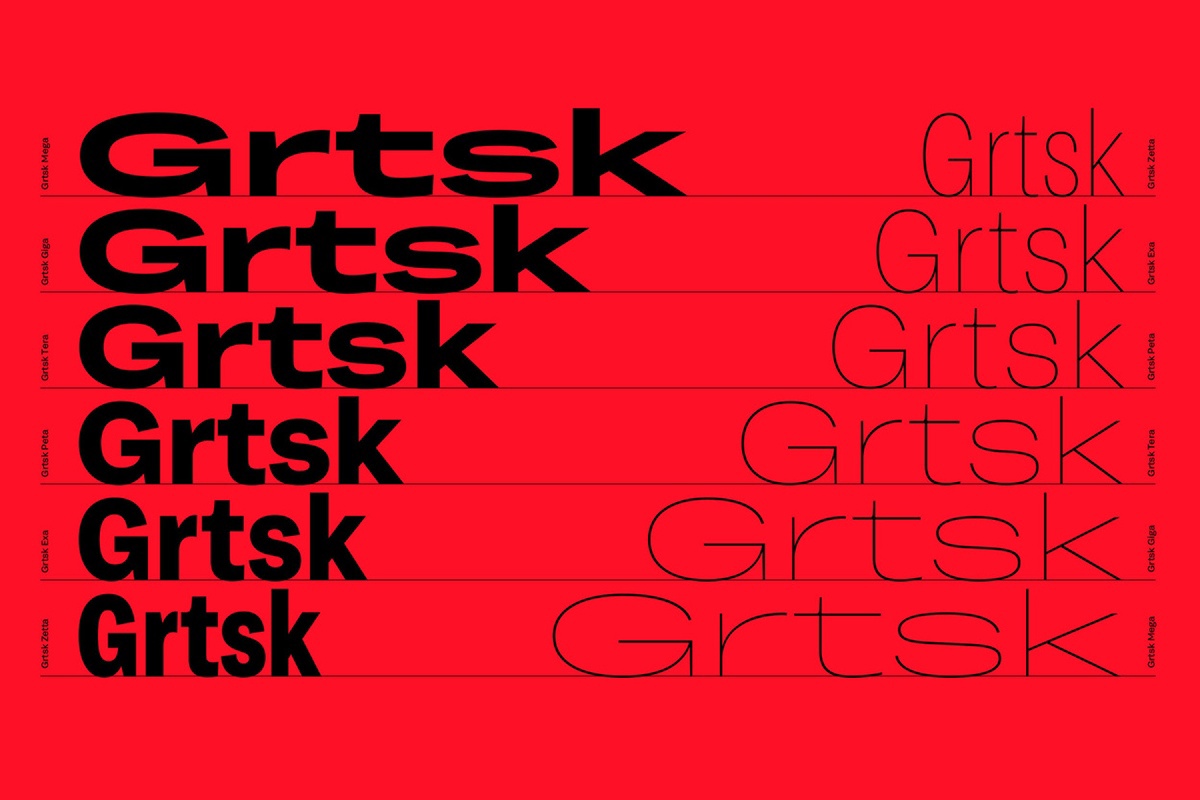
Grtsk Font
Grtsk Font is perfect for minimalist brand identities, modern tech interfaces, contemporary corporate communications, clean architectural signage, streamlined product packaging, professional web typography, efficient document layouts, systematic design applications, straightforward marketing materials, and functional digital platforms.
What makes Grtsk Font so exciting is its exceptional ability to deliver pure functionality and uncompromising clarity through letterforms that seem stripped of all unnecessary elements while maintaining perfect readability and professional appeal. This essential typeface embodies the principles of functional design and systematic communication with characters that prioritize information delivery over decorative flourish. The font's systematic design elements perfectly balance utilitarian efficiency with contemporary aesthetics, creating an indispensable tool that communicates clarity, reliability, and systematic thinking, making it essential for organizations and projects that value functional excellence and direct communication over stylistic complexity.
Grtsk Font comes in multiple font families including Regular, Bold, Light, Italic, Bold Italic, Condensed, Extended, and System variations. Each family member maintains the core functional characteristics while offering different utility levels and systematic approaches to suit various professional and technical design requirements.
The systematic precision in Grtsk Font makes it particularly effective for technology companies and systematic organizations where conveying clear information and functional reliability is crucial for user experience and professional credibility. Its efficient letterforms work exceptionally well across all systematic applications, from technical documentation to corporate interfaces, maintaining consistent functional impact while providing maximum readability and information clarity.
Professional communication specialists recognize how Grtsk Font transforms complex information into accessible, systematic presentations that prioritize user understanding and functional efficiency. The typeface's comprehensive character set includes extensive international language support, technical symbols, and systematic features that accommodate complex functional requirements and global systematic communication needs.
For creative professionals serving technology companies, systematic organizations, and functional design applications, Grtsk Font serves as the ultimate foundation for creating memorable user experiences that capture the essential qualities of functional excellence, systematic reliability, and clear communication that define successful brands built on utility, efficiency, and straightforward professional excellence in competitive markets where clarity and function determine success.